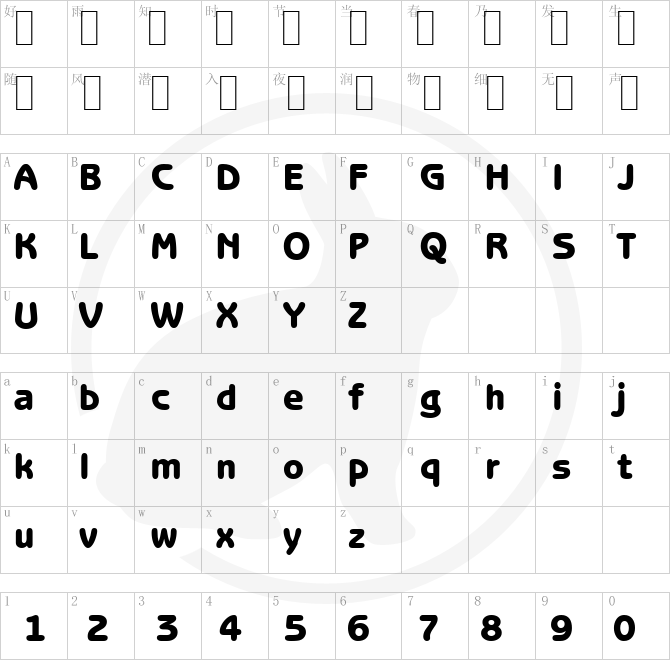
- Font Name:B691-Sans-Heavy
- Subfamily:SoftMaker Software GmbH B691-Sans-Heavy-Regular
- Full Name:B691-Sans-Heavy-Regular
- PostScript:B691SansHeavy
B691-Sans-Heavy-Regular.ttf is a very beautiful artistic font, B691-Sans-Heavy-Regular.ttf is widely used in the design and printing of various books and pictures,B691-Sans-Heavy-Regular.ttf has a strong visual impact,B691-Sans-Heavy-Regular.ttf is a commonly used font in newspapers, magazines and books, and is used in posters, e-commerce Poster design, store design, logo design, font design and other fields.B691-Sans-Heavy-Regular.